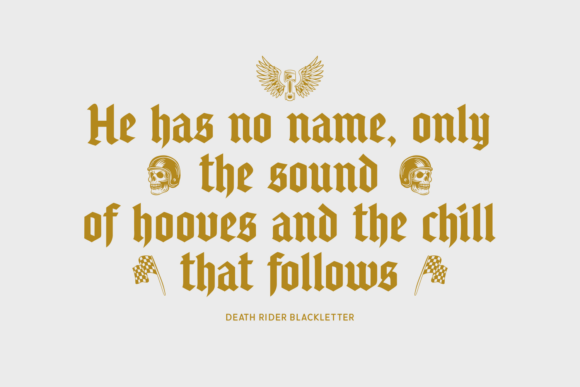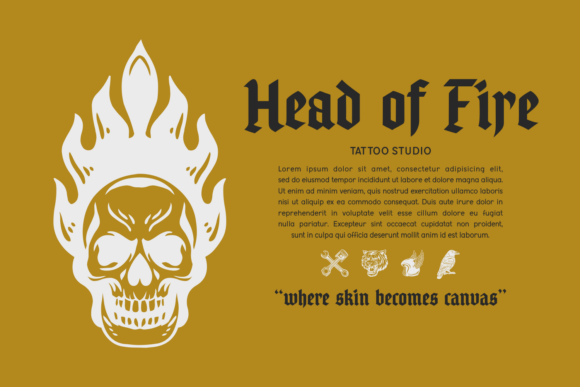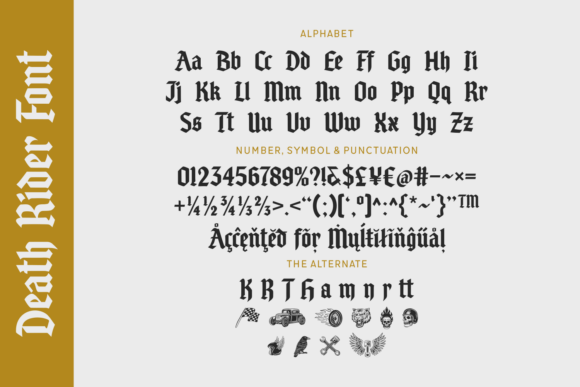
Introduction to Death Rider Font
A promotional image for “Death Rider,” a modern blackletter typeface.
The typeface is noted to include alternate characters and extra design elements, making it ideal for creating edgy and impactful branding, logos, and apparel .
Key Features of Death Rider Font
Why Choose Death Rider Font?